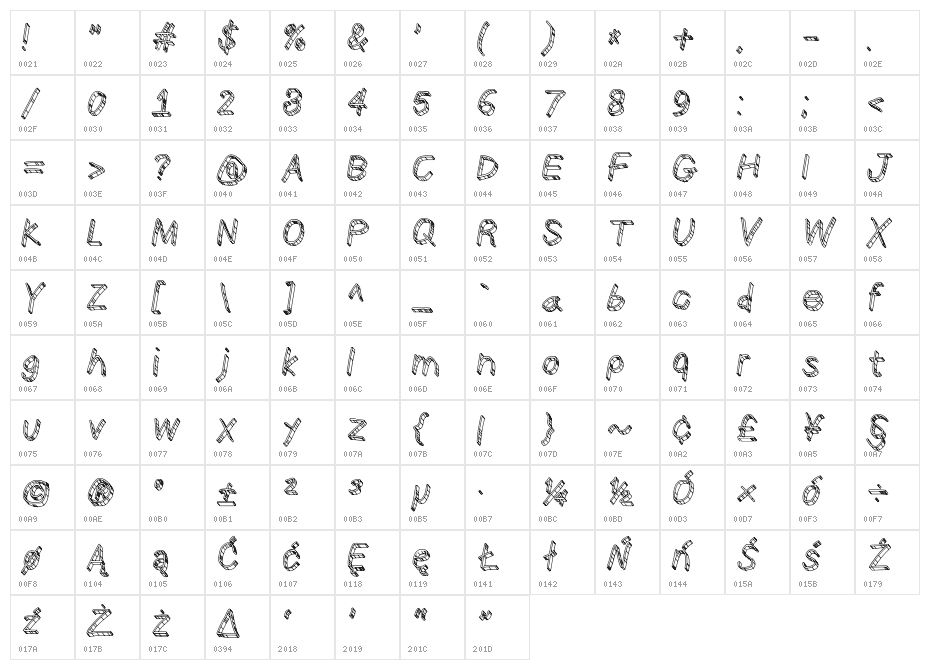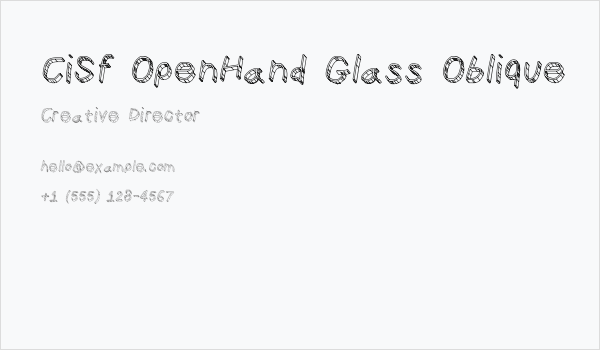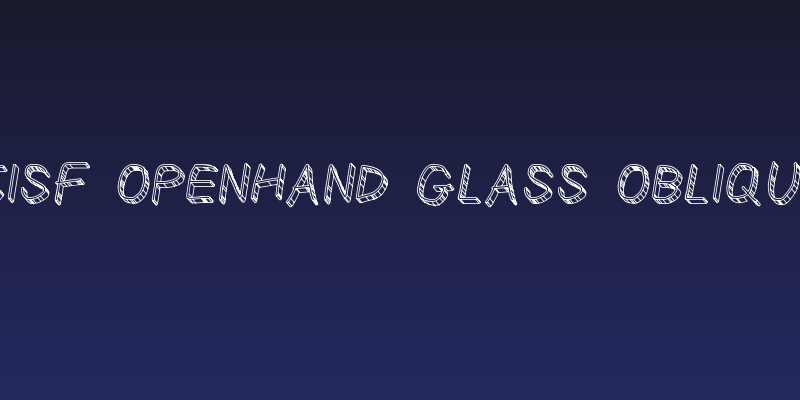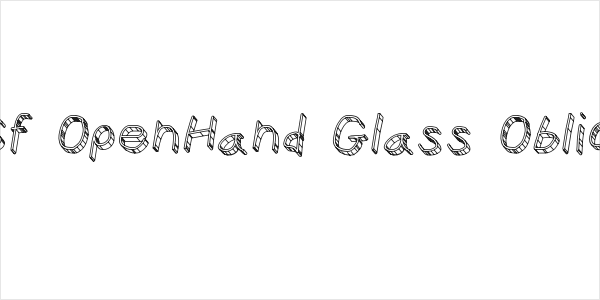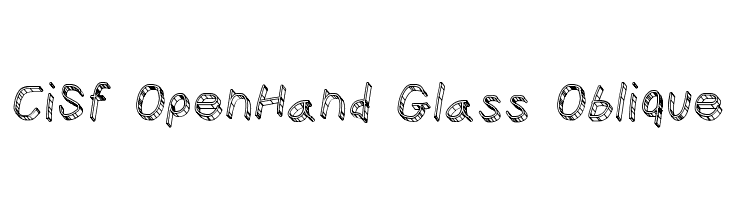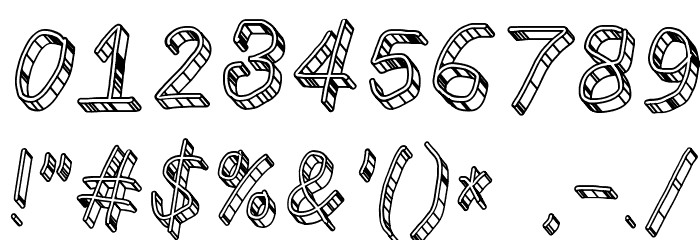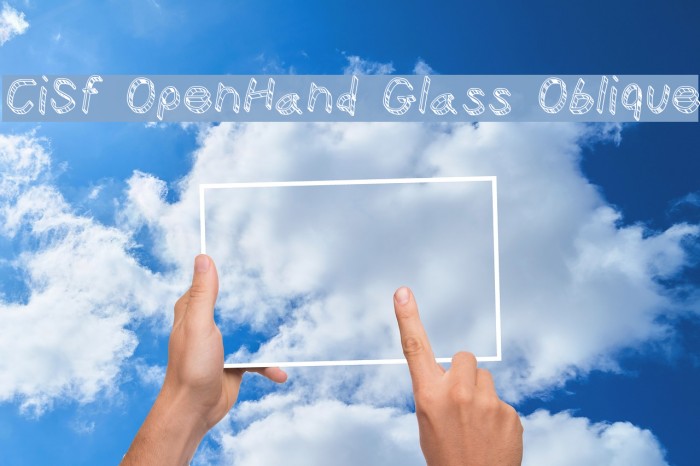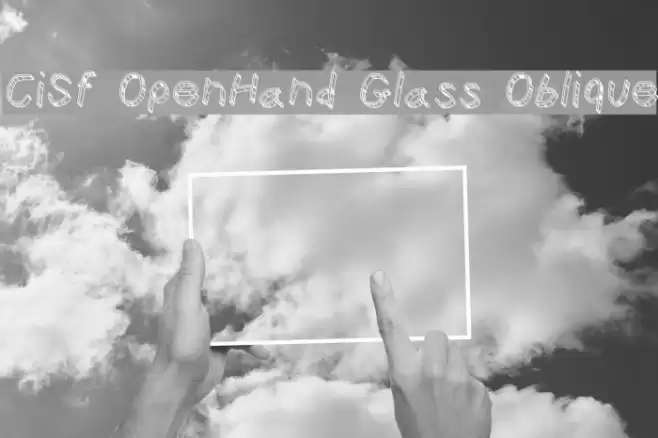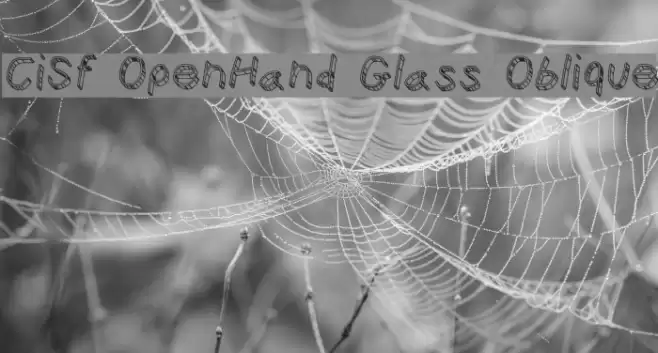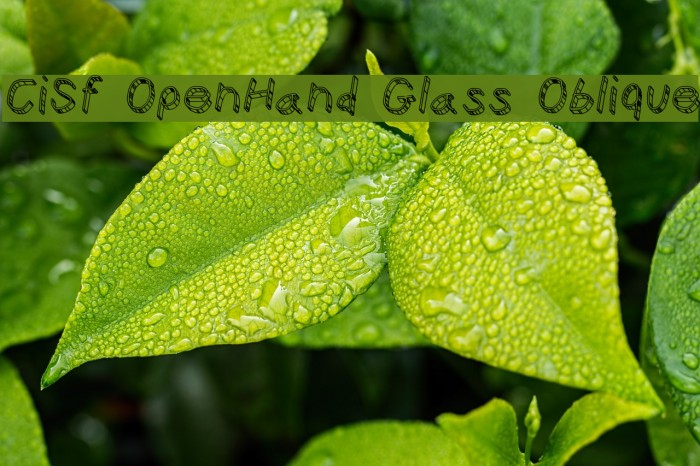
CiSf OpenHand Glass Oblique Font
CiSf OpenHand Glass Oblique Description
This font features a playful, three-dimensional design that mimics the appearance of glass or transparent material. Each character is outlined with a bold, black line, giving it a distinct and eye-catching look. The letters are slightly slanted, adding a dynamic and energetic feel. The interior of each character is filled with diagonal lines, enhancing the illusion of depth and texture. This unique style makes it ideal for creative and informal projects where a fun and engaging typeface is desired.
| Proposed Projects | Ideal for children's book covers, playful posters, creative branding, and eye-catching headlines. |